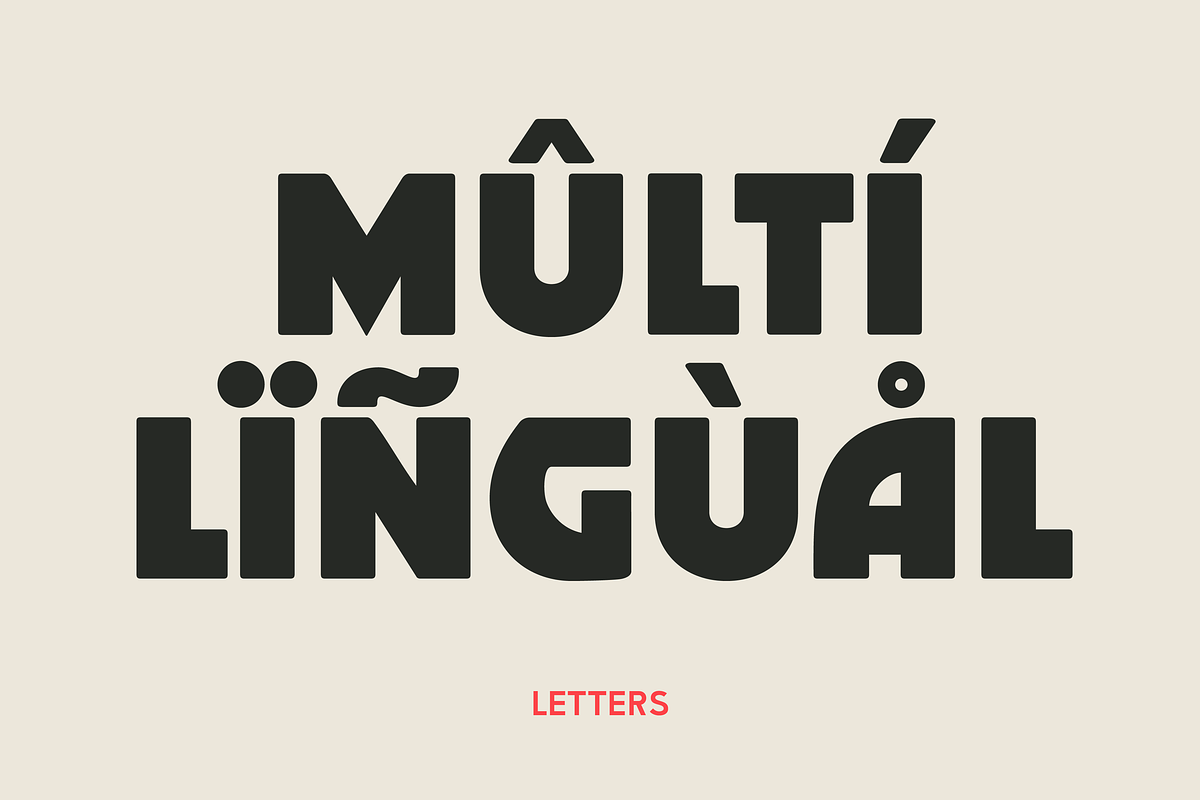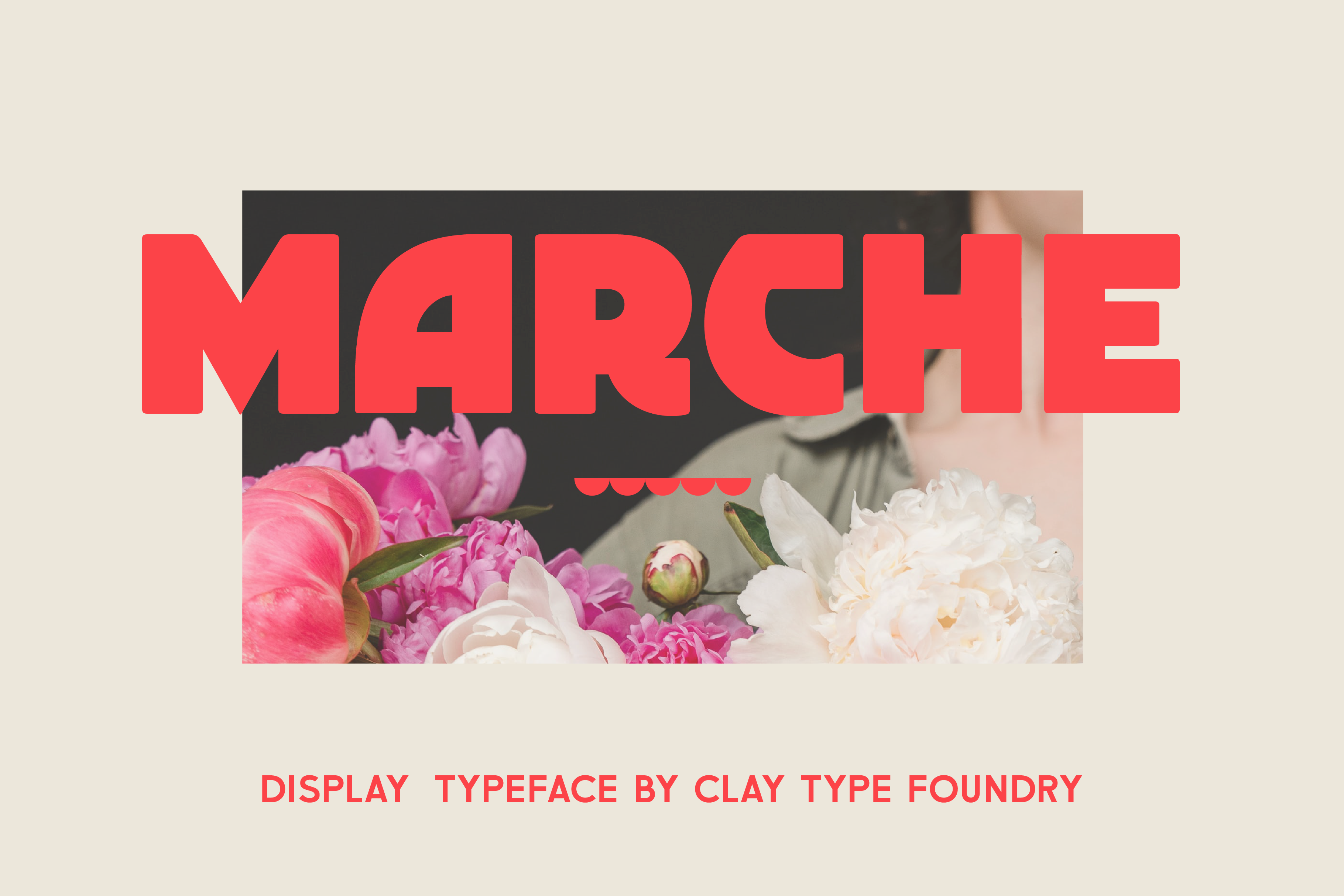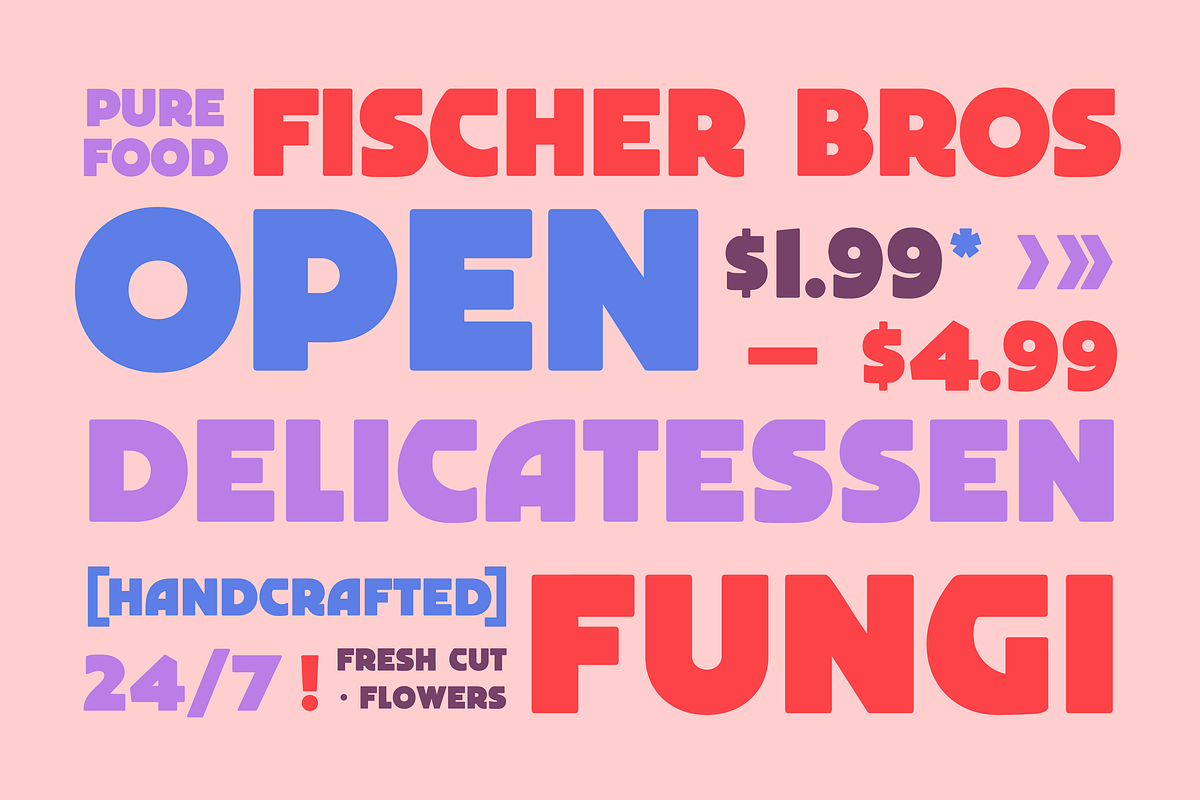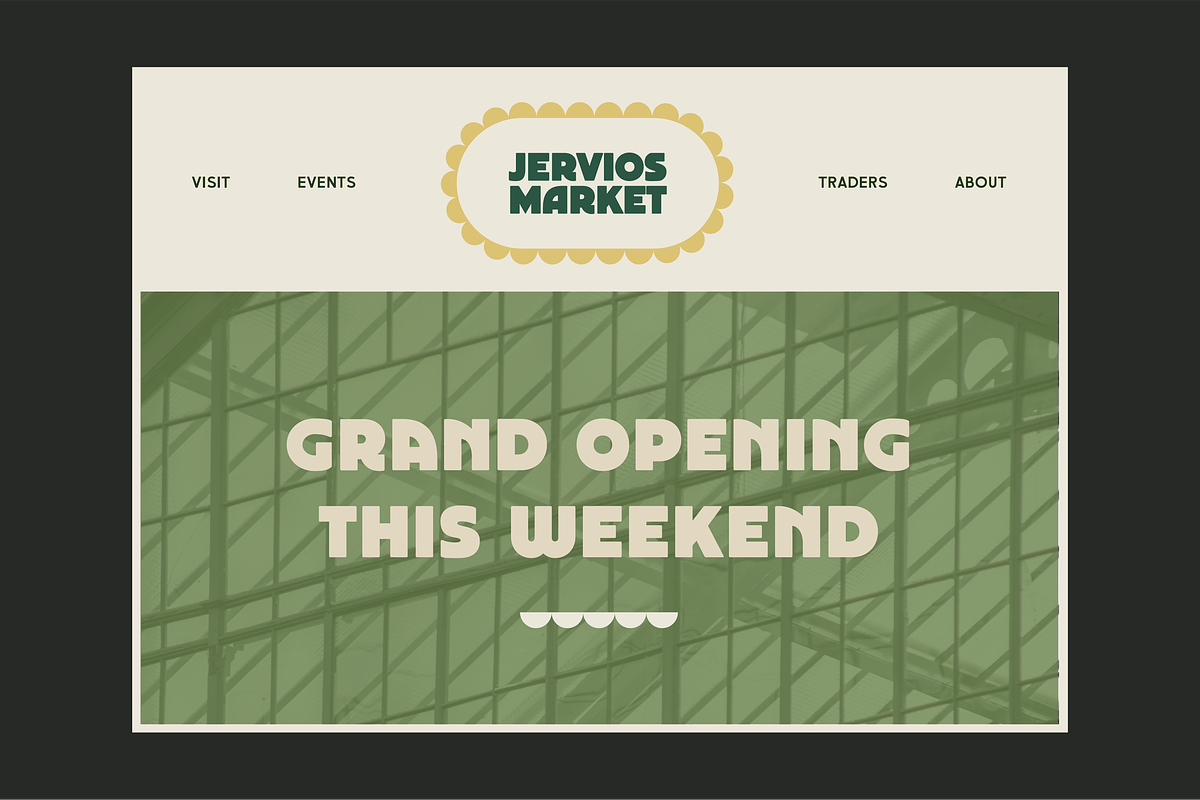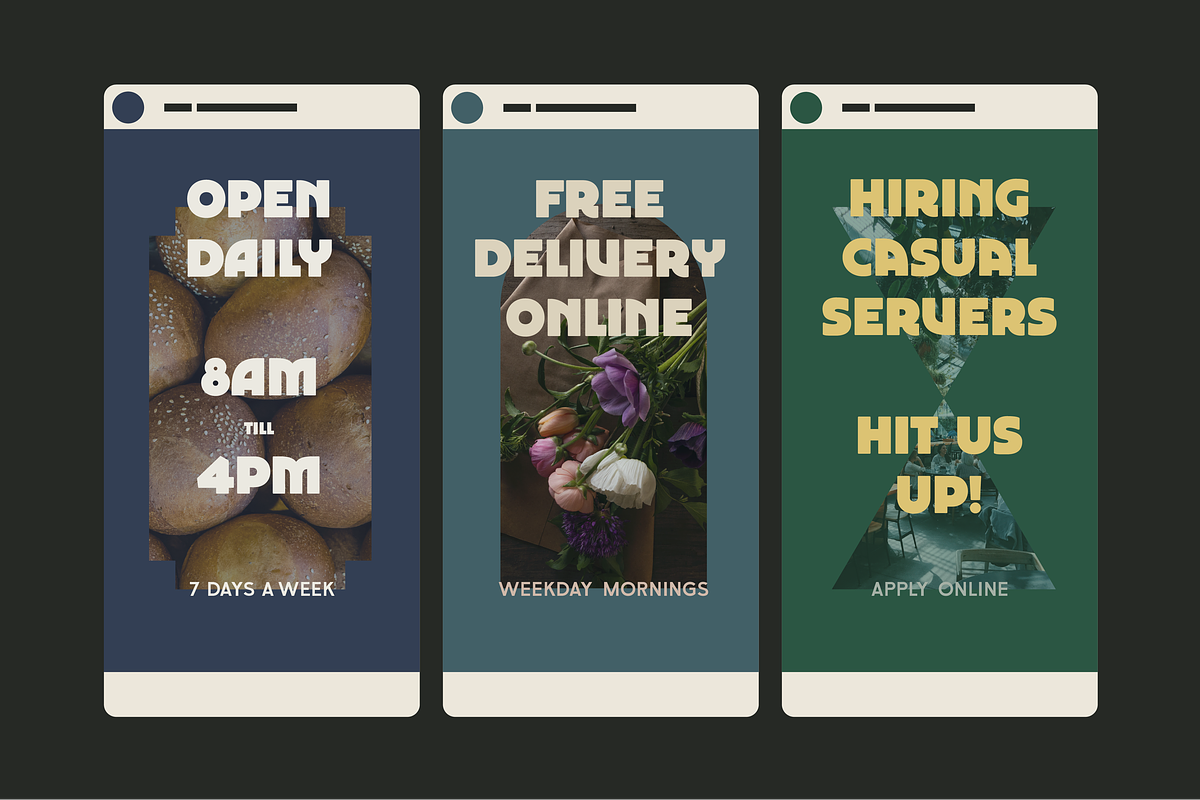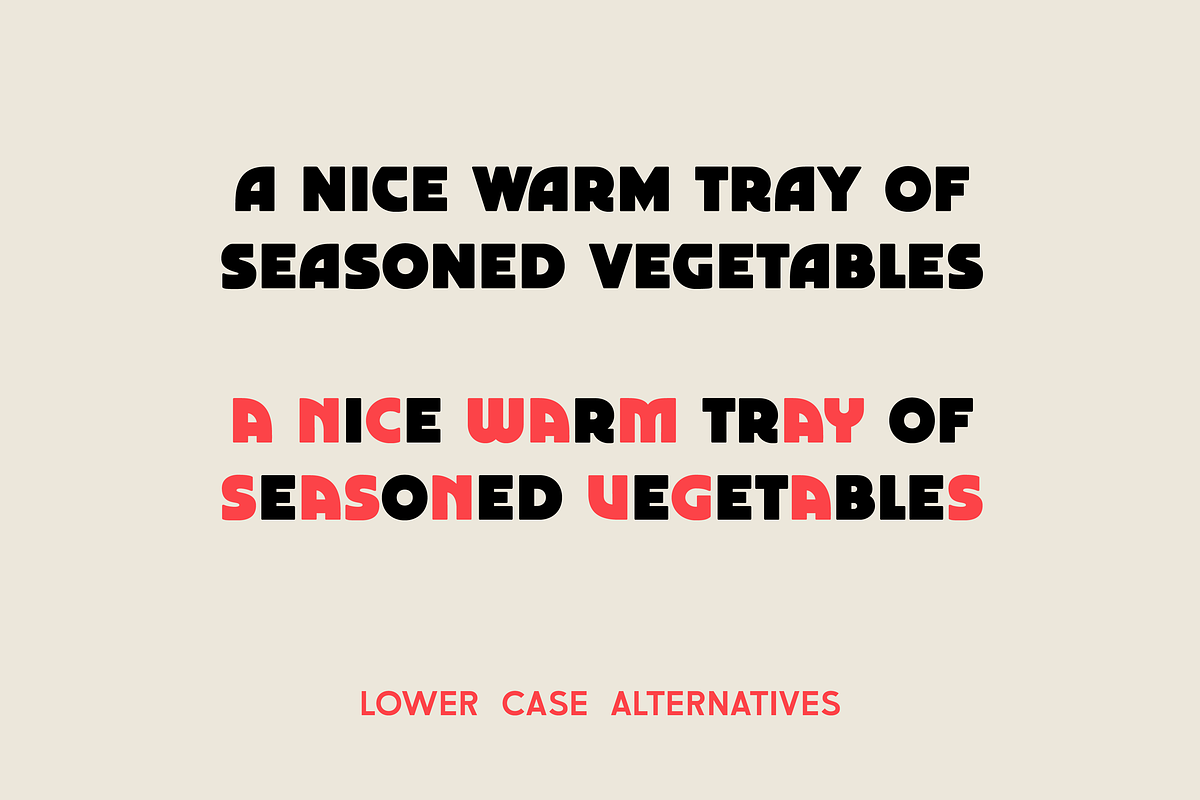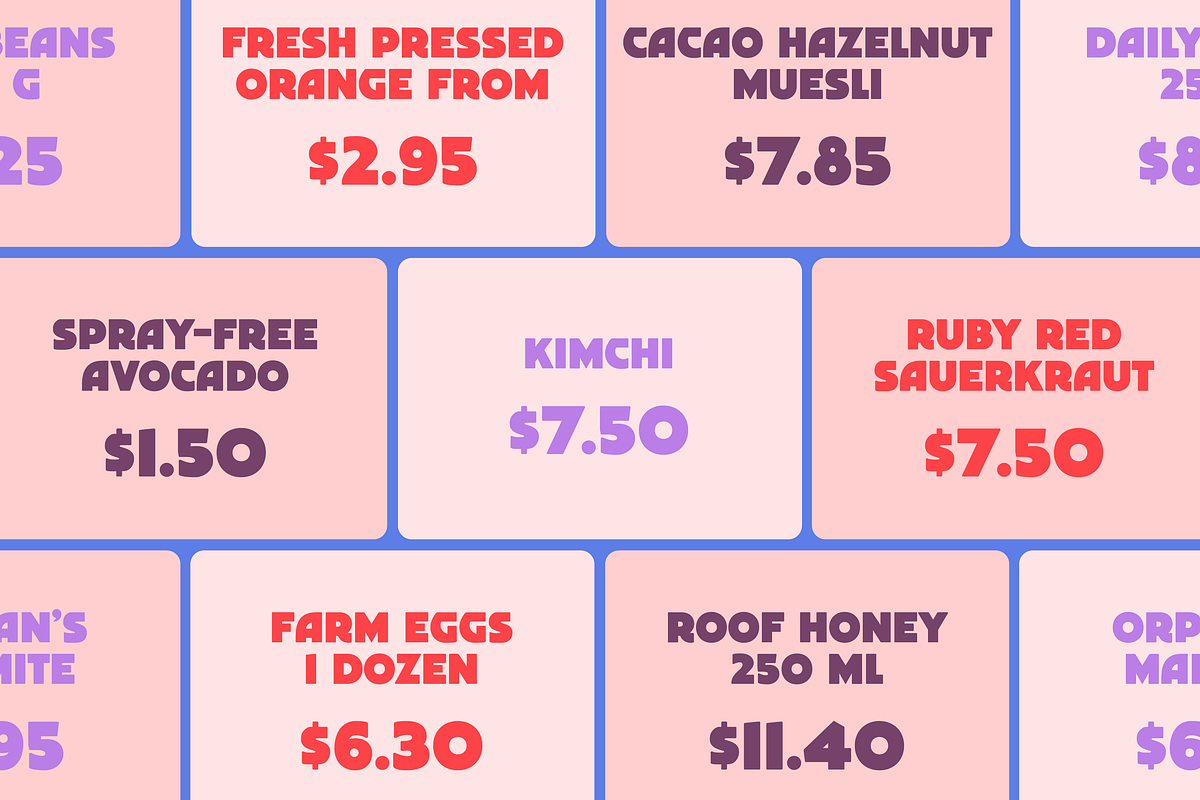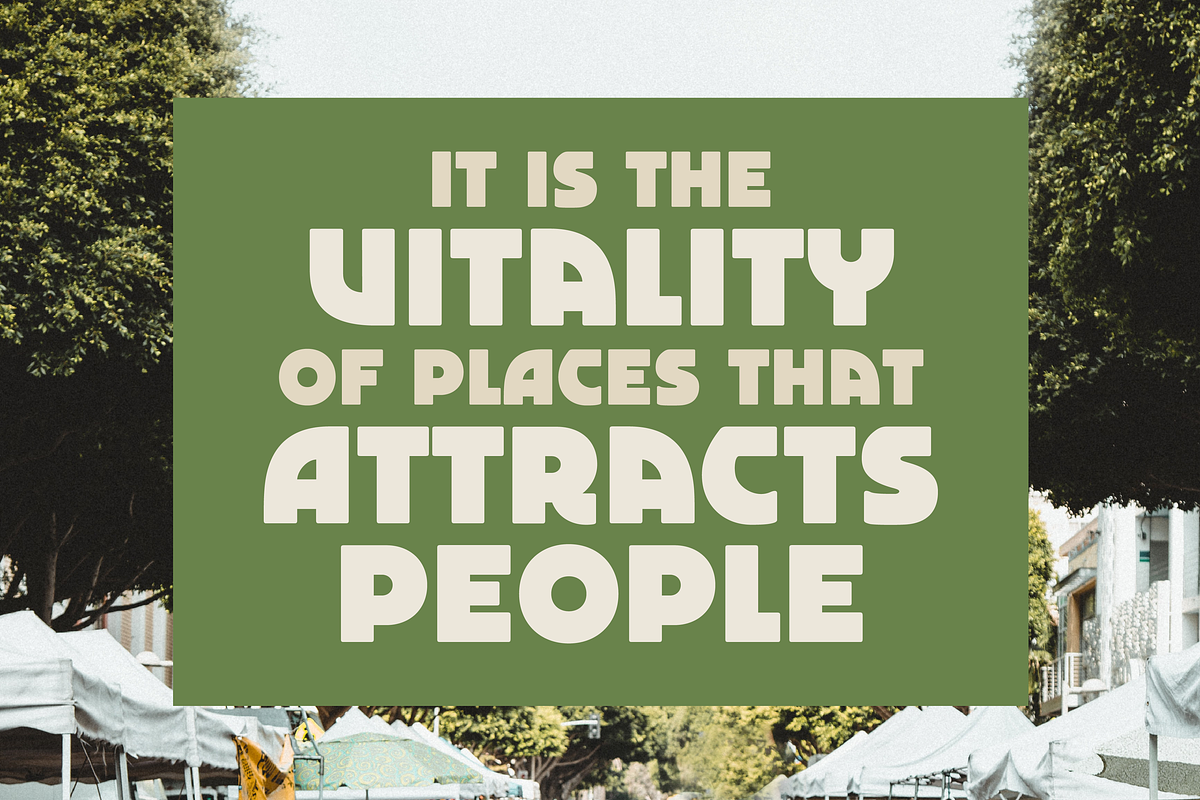
Marche Display Font
Marche is a typeface full of wonder. Abundant with rounded shapes, geometric forms and soft lines. A lively font that is both heavy and light. Designed to shine when used in signage, logos, headlines or short to medium length texts where you need something distinct. It also pairs beautifully with thin sans serif fonts.
Inspired by thick brush strokes and expressive hand written signs in lively markets, pop this into your basket to add a little punch to your next design project.
- ALL CAPS font
- Lowercase Alternatives